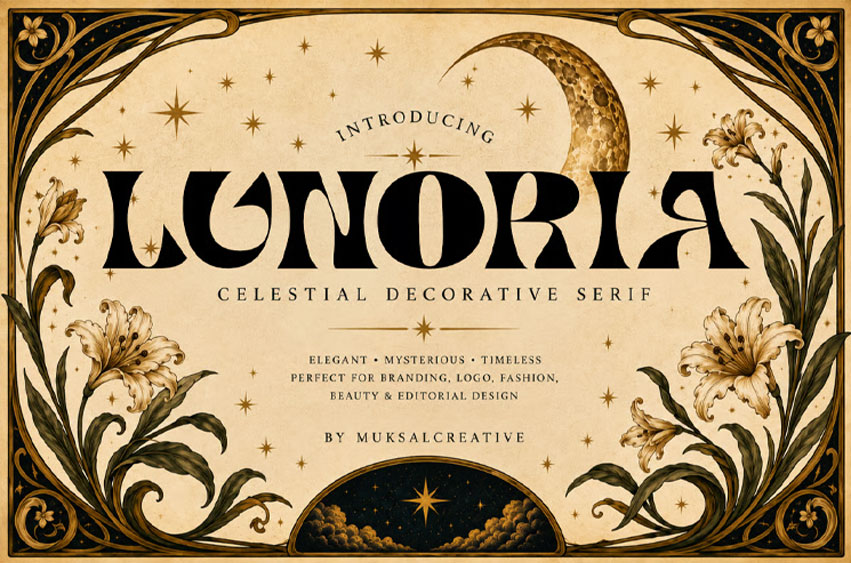
Lunoria Font
Lunoria Font is a celestial decorative serif crafted to bring elegance, mystery, and sophistication into every design. Inspired by the beauty of the night sky, moonlit landscapes, and timeless luxury aesthetics, this typeface combines distinctive decorative details with refined serif forms.
Its unique character shapes make Lunoria perfect for luxury branding, fashion editorials, beauty packaging, perfume labels, jewelry logos, wedding stationery, boutique branding, and premium marketing materials.
Whether you’re creating a high-end logo, elegant invitation, cosmetic packaging, or a captivating editorial headline, Lunoria delivers a memorable and luxurious visual presence that instantly elevates your design.